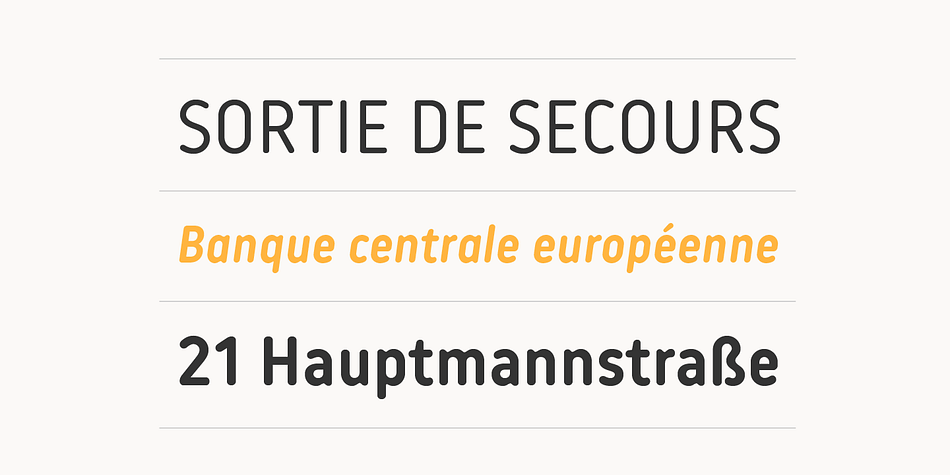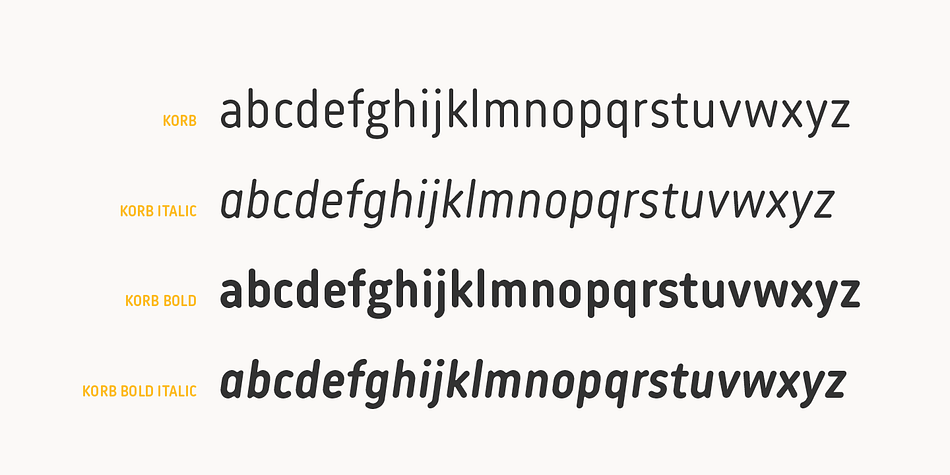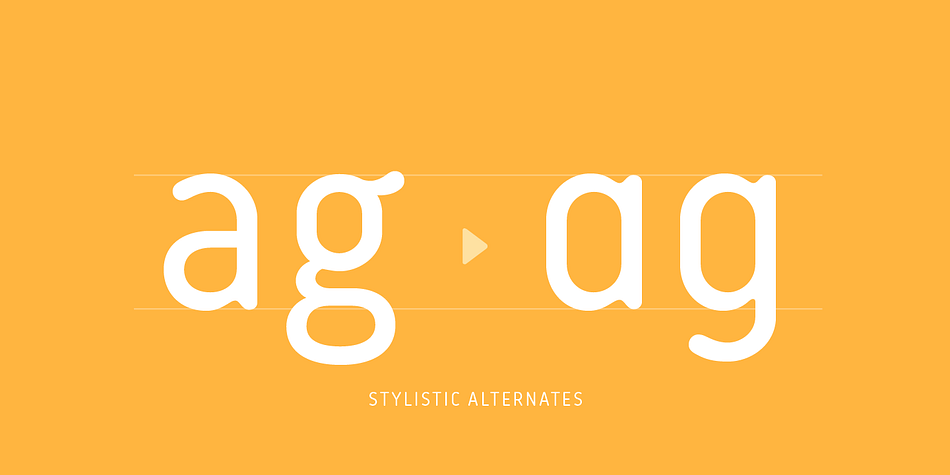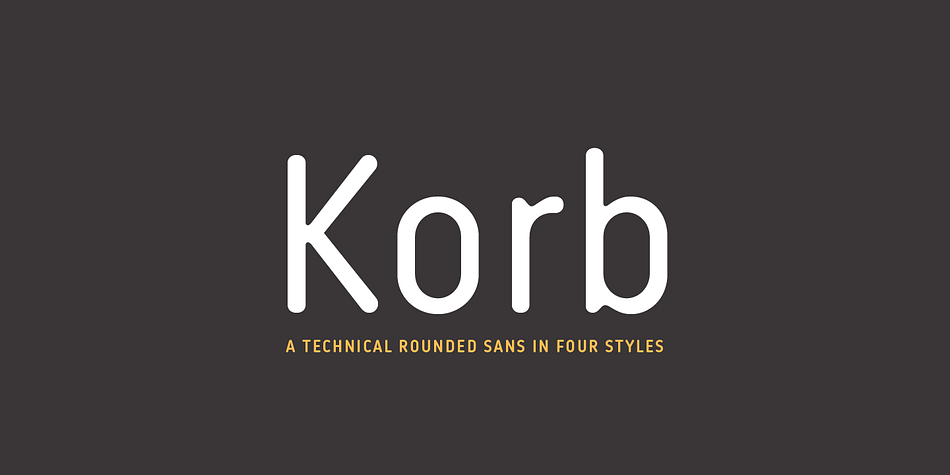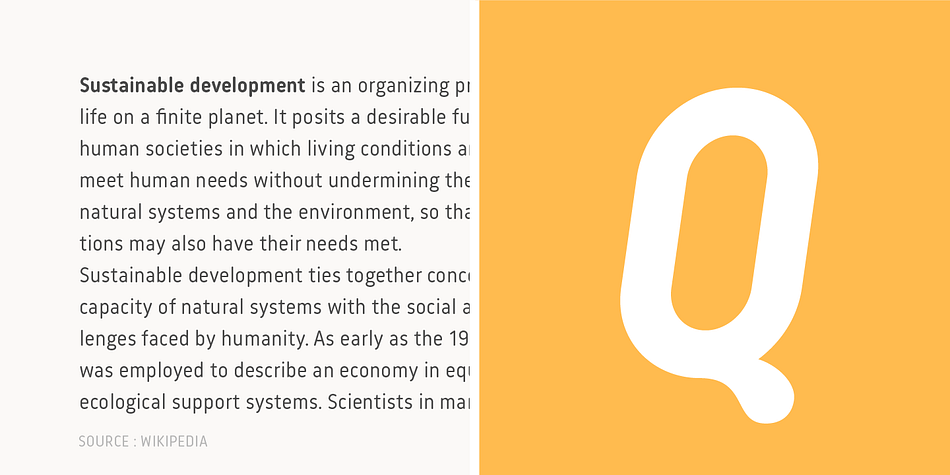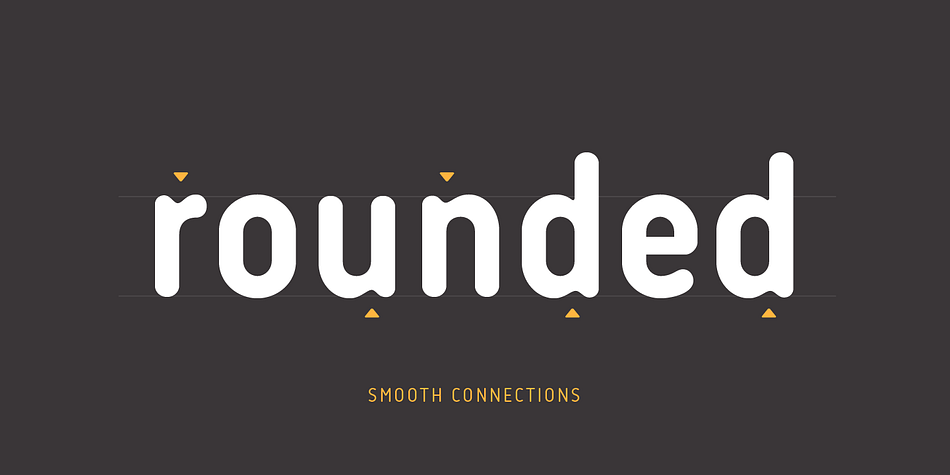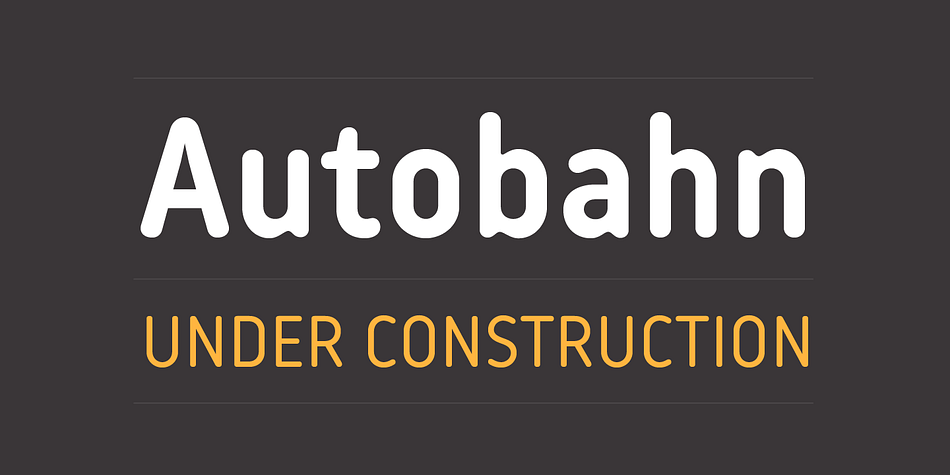
Korb is a sans serif font family. This typeface has four styles and was published by JCfonts.
Korb is a rounded sans serif family of four styles. It features a narrow geometric construction inspired by DIN letter shapes along with more unusual details like open counters and smooth connections between shoulders and stems. This makes the family suitable for a variety of applications, from corporate design to signalization.
The fonts, provided in OpenType format, include diacritics for most European languages, a set of arrows and a variety of OpenType features like stylistic alternates, case-sensitive forms, tabular figures, etc.